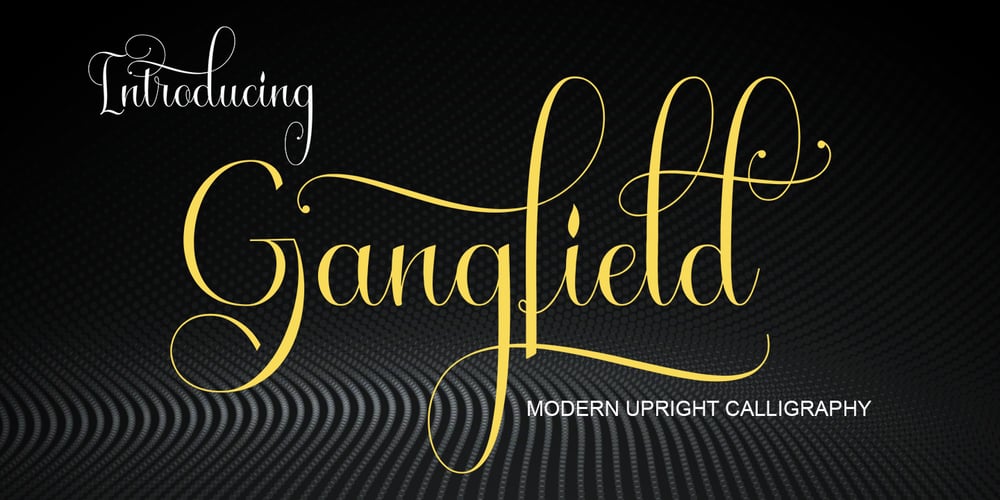
Gangfield Font Family was designed by Muhammad Rayyan and published by Slex Studio. Gangfield contains 1 styles and family package options. Based on lettering with a sharp pen, Gangfield features a rather solid character and a measured rhythm. This is named after my nephew who has an optimistic and disciplined style. Gangfield is available in upright variants, with regular, italic and bold weights.Gangfield’s bright and cheerful energy shines through either in the form of short blocks of text, or enhanced on display sizes with over 1,100 wildcards and swashes that vary in size and complexity. Gangfield includes 134 alternates with various variations plus several variants of ligatures which make it ideal for special dates such as weddings and parties.